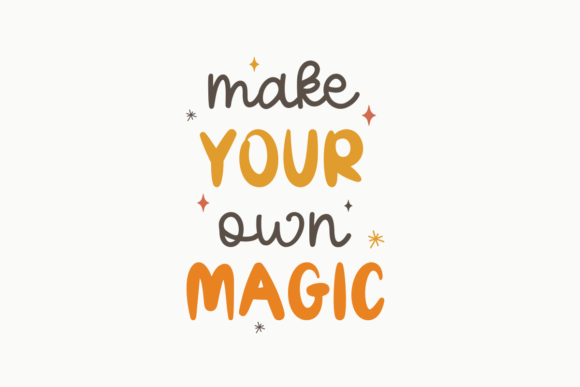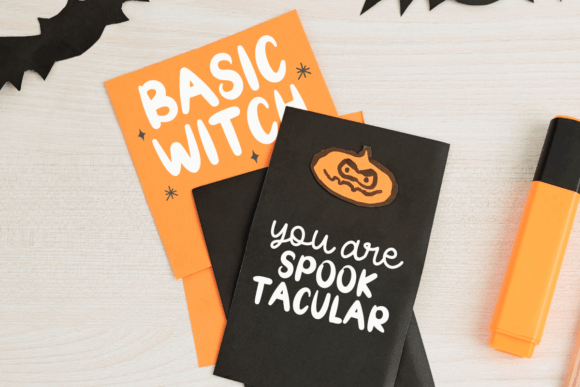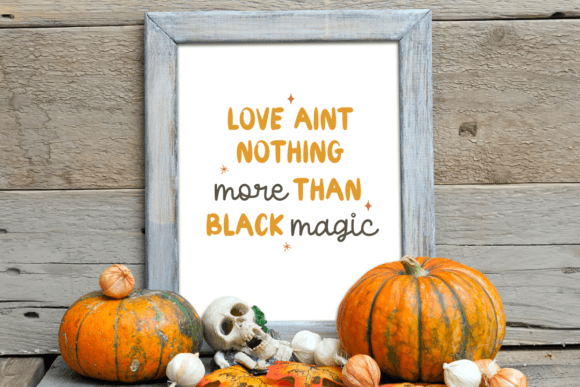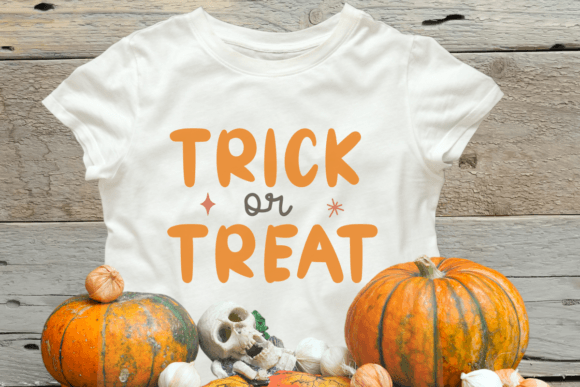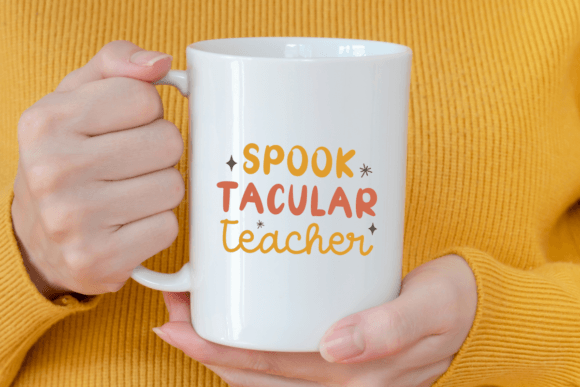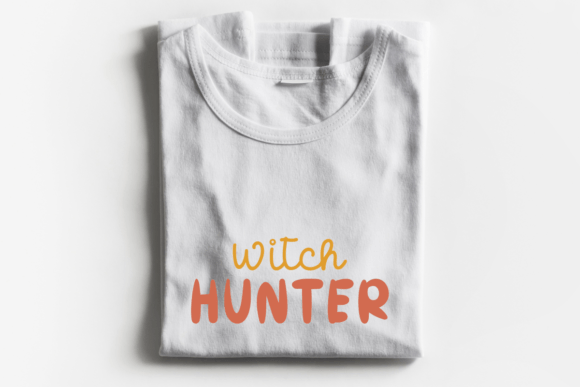
Introduction to Mighty Momster Font
Unveiling ‘Mighty Momster’, a hauntingly appealing pair of handwritten fonts.
Unfold an extraordinary blend of cuteness and elegance with this script and display combo Breathe life into your creative projects with these fonts, imbuing a personal touch that will seamlessly brighten up t-shirts, adding a distinctive charm to birthdays and weddings.
Key Features of Mighty Momster Font
Why Choose Mighty Momster Font?
Mighty Momster Font offers exceptional quality and versatility, making it a valuable addition to your design toolkit. Whether you’re creating for personal projects or commercial use, Mighty Momster Font delivers professional results.